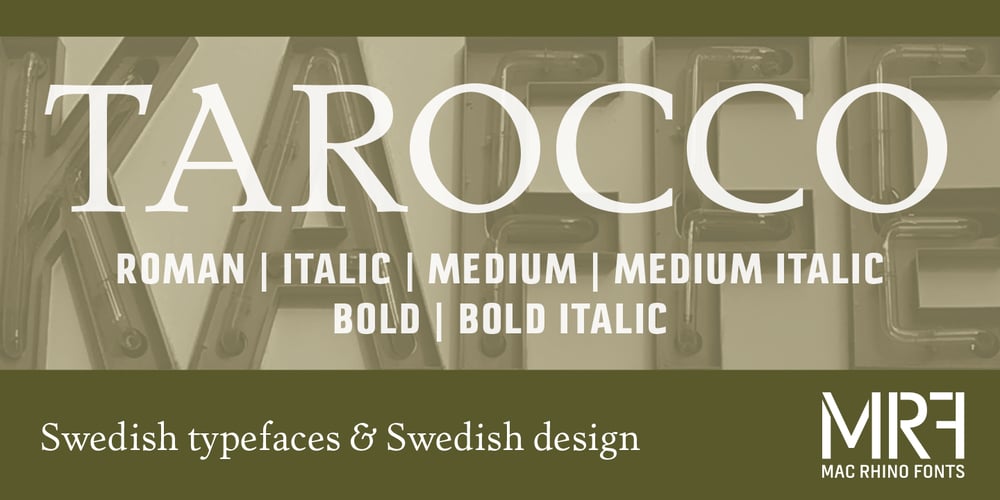
Tarocco Font Family was designed by Stefan Hattenbach and published by MAC Rhino Fonts. Tarocco contains 19 styles and family package options. Tarocco is a typical book face with good readability and rather tall x-height. The origin for this typeface is found in Nordisk Antikva. A typeface especially constructed with attention for the Swedish language. Waldemar Zachrisson was determined to realize his ideas and in 1906 he began to cooperate with the foundry Genzsch & Heyse, based in Hamburg. Some influences of Jugendt can be found and the typeface were released in 1910. It became rather popular until around 1930. The MRF version includes 7 weights all together.